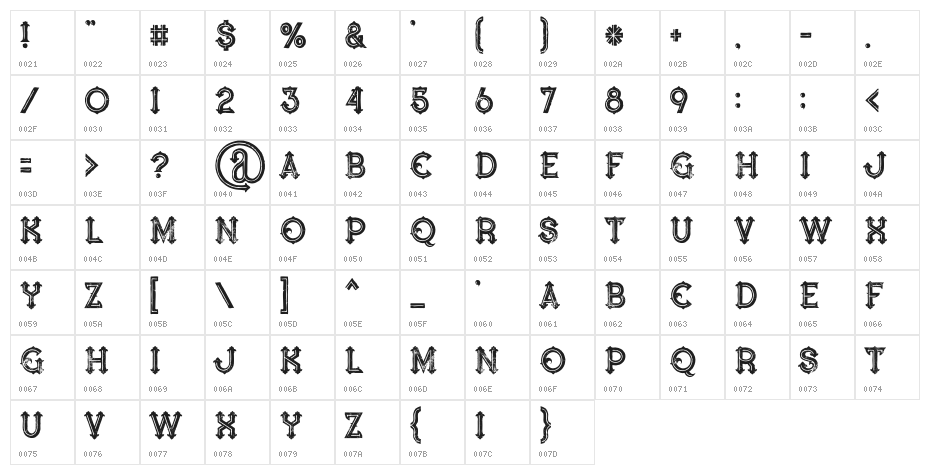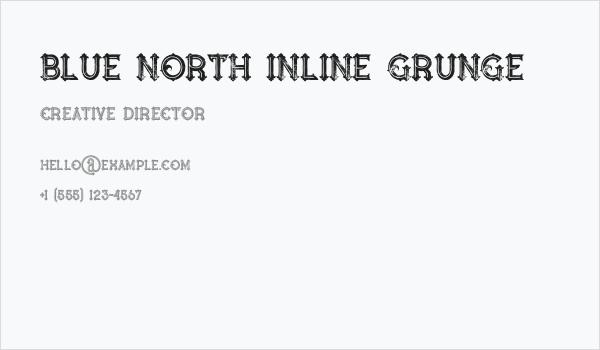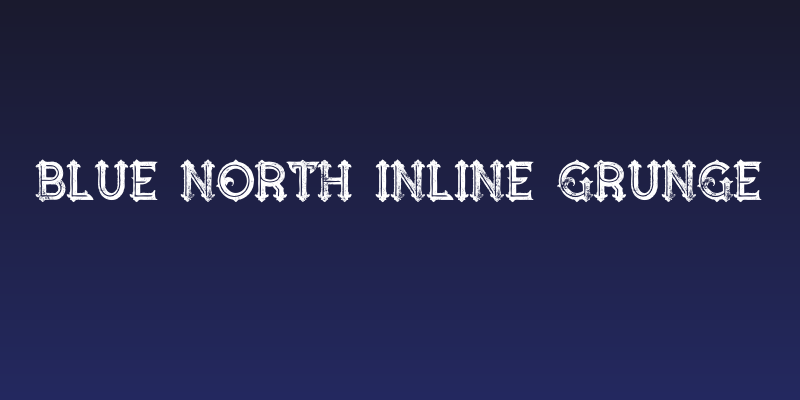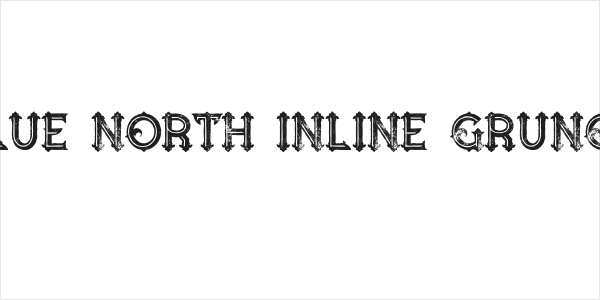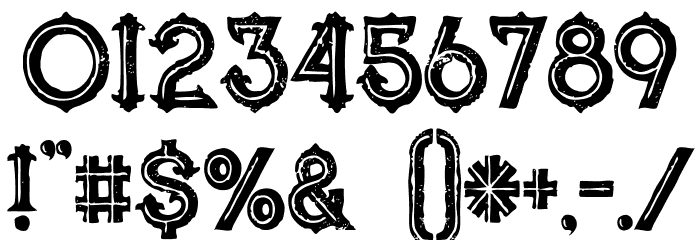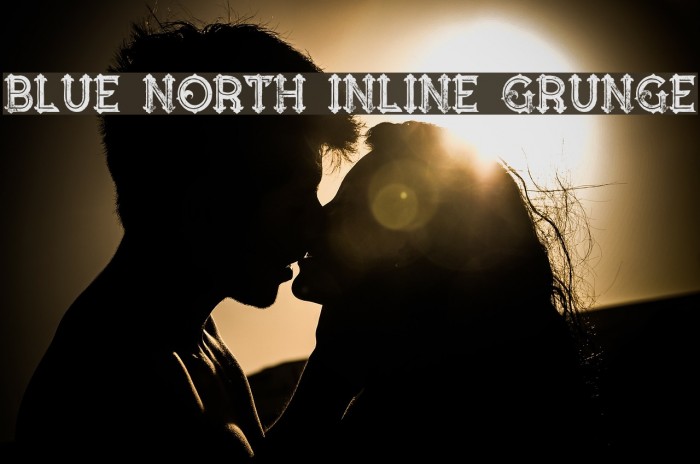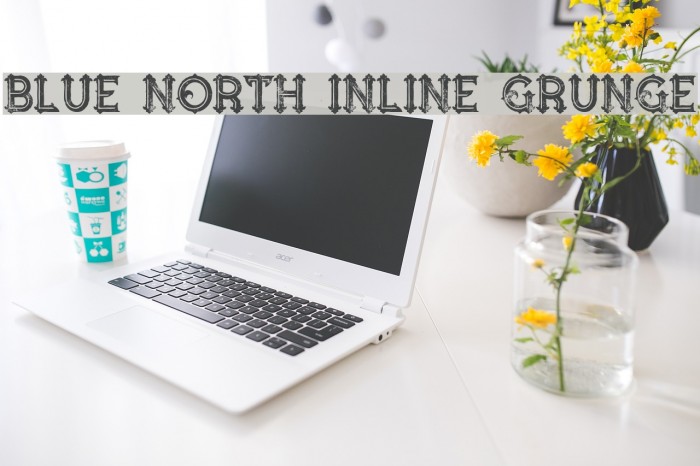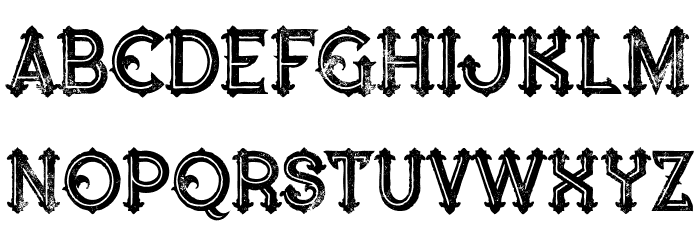
Blue North Inline Grunge Font
This font features a bold, distressed style with a grunge aesthetic. Each character is outlined with a rough, textured edge, giving it a worn and rugged appearance. The inline design adds depth and dimension, making the letters stand out with a three-dimensional effect. The uppercase and lowercase letters maintain a consistent style, with the numerals and special characters following suit. This font's unique design is ideal for projects that require a vintage or industrial feel, adding character and personality to any text.
| Overall Style | Grunge, Vintage |
| Proposed Projects | Ideal for posters, album covers, branding for edgy or vintage-themed products, and any design requiring a bold, impactful statement. |